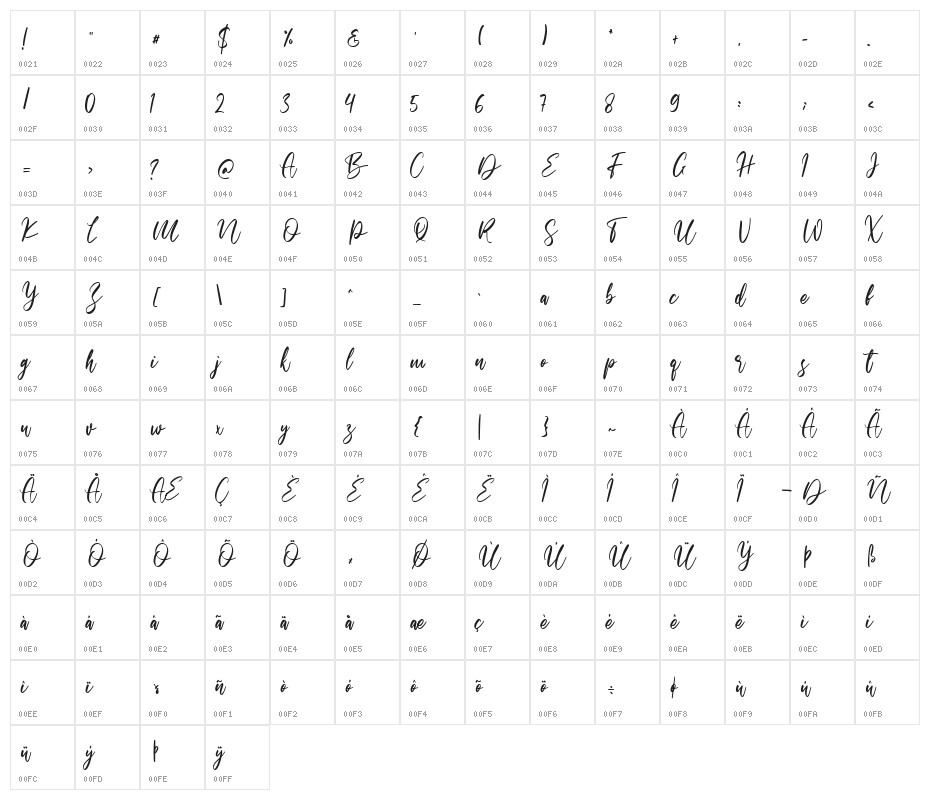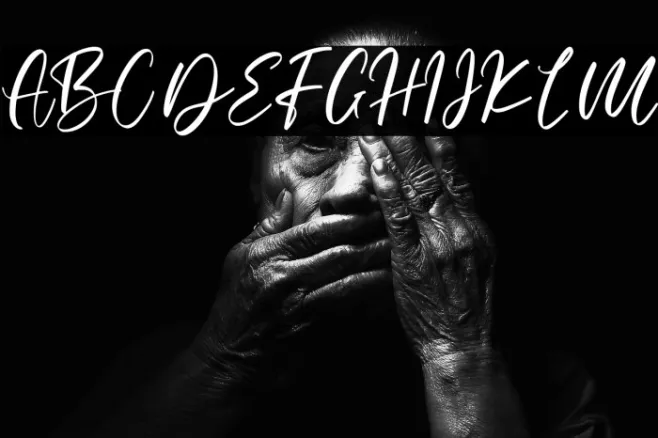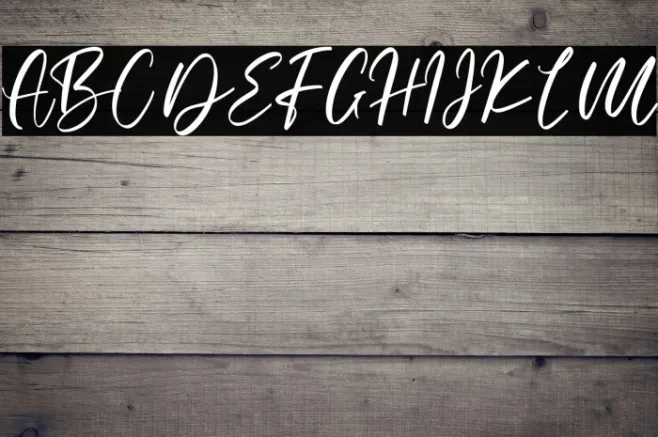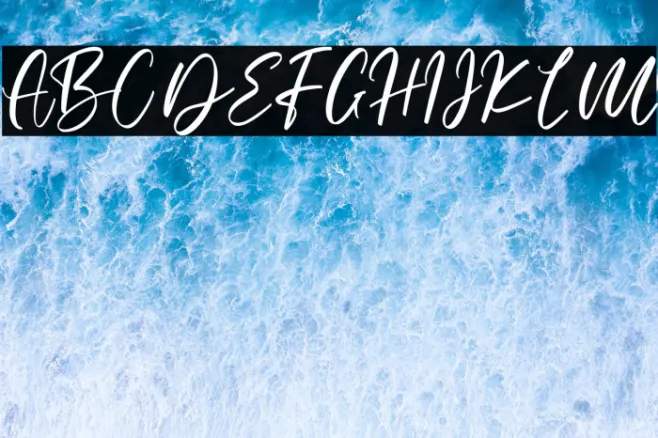
Walentiny Font
Walentiny Description
This font features a flowing, cursive style that exudes elegance and sophistication. The letters are interconnected, creating a seamless and fluid appearance. The strokes are moderately thick, providing a bold presence while maintaining a graceful look. The uppercase letters are tall and slightly slanted, adding a dynamic feel, while the lowercase letters are more compact and rounded, offering a harmonious balance. The numerals and special characters are designed to match the overall aesthetic, ensuring consistency throughout. This font is ideal for projects that require a touch of class and personality.